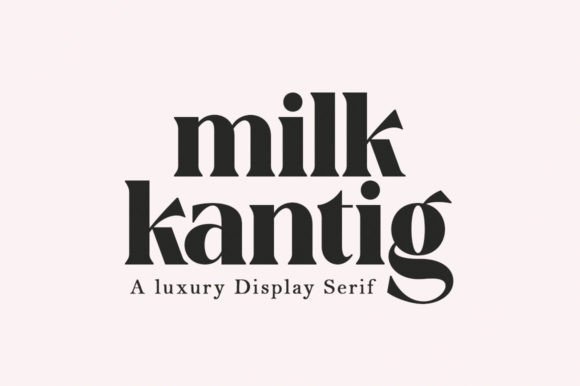
Introducing Milk Kantig, the epitome of elegance and luxury in the world of serif fonts. Created by the talented Kama Studio, this font is specifically designed for minimalist designs that exude sophistication and refinement.
Milk Kantig offers a comprehensive range of features, including both uppercase and lowercase letters, numerals, and an extensive selection of punctuation marks. With its timeless and modern classic style, this serif font effortlessly captures attention and adds a touch of class to any project.
Whether you're working on posters, web designs, branding, illustrations, badges, or any other creative endeavor, Milk Kantig is the perfect choice to instantly elevate your work. Its sleek and sleek forms embody elegance, making it an ideal companion for high-end brands, luxury products, or any project that demands a refined aesthetic.
One of the key strengths of Milk Kantig lies in its ability to evoke emotions and create a captivating visual experience. Its clean and crisp lines establish a sense of clarity and professionalism, while its subtle curves and intricate details add depth and character. This font effortlessly conveys a sense of exclusivity, making it highly desirable for those seeking to make a lasting impression.
Unlock your creative potential and indulge in the luxury of Milk Kantig. Let this font be your artistic companion, guiding you towards creating visually stunning and impactful designs. Immerse yourself in its timeless beauty, and let it inspire you to transcend the ordinary.
Don't settle for mediocrity when you can embrace excellence with Milk Kantig. Experience the power of this luxury display serif font and witness how it transforms your projects into works of art. Join the ranks of renowned designers who have discovered the allure of Milk Kantig and let your creativity soar to new heights.